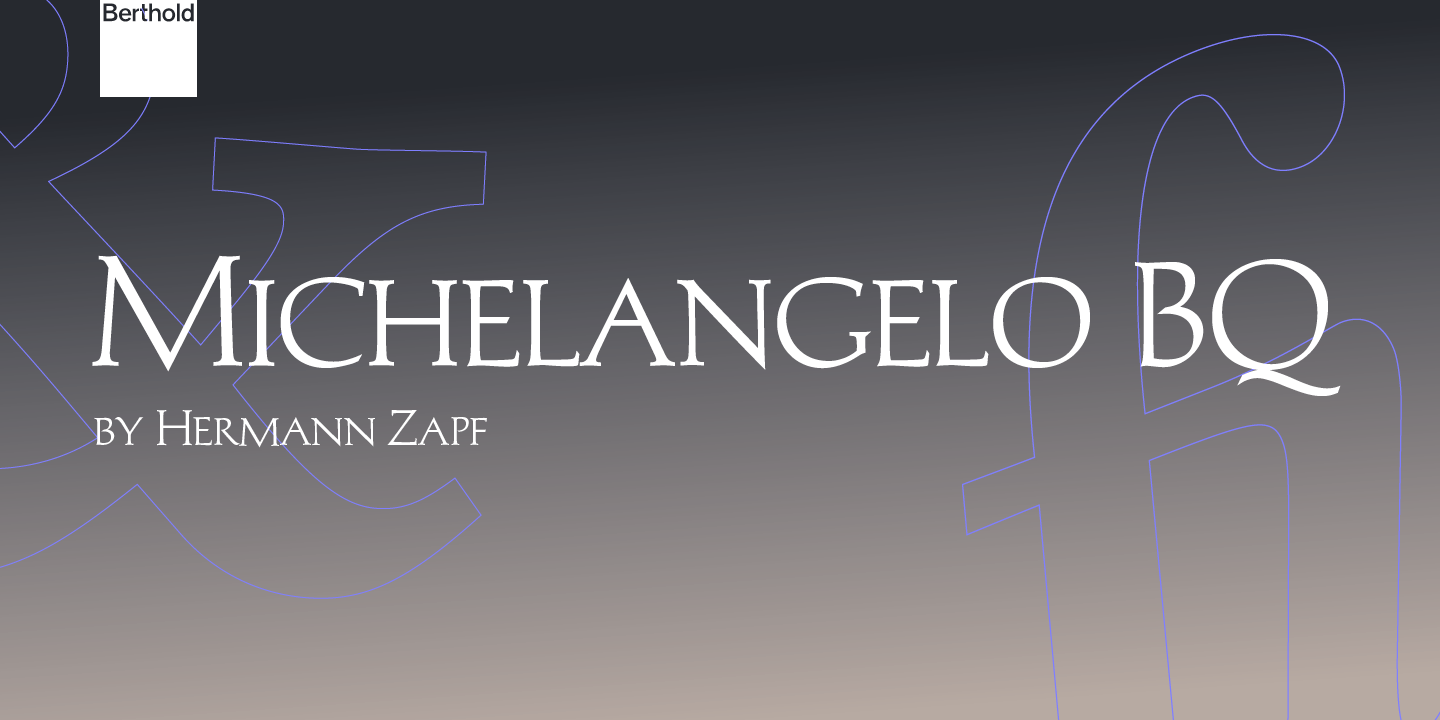
Michelangelo Font Free Download is a timeless serif typeface inspired by Renaissance artistry, bringing a touch of classical elegance to your design projects. Please note: you must purchase a license for commercial use — this font is available as a free download strictly for personal and testing purposes.
Ideal for book covers, editorial design, invitations, branding, and luxury packaging, Michelangelo Font Free Download adds sophistication and a historic charm to your creative work.
What makes this font exciting is its delicate serifs, balanced stroke contrast, and graceful curves that reflect the artistry and refinement of Renaissance calligraphy.
The Michelangelo font family includes Regular, Italic, Bold, and Bold Italic styles, offering versatility for expressive and elegant typography.